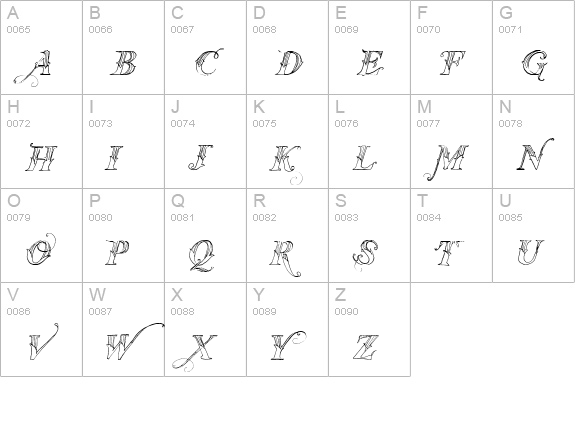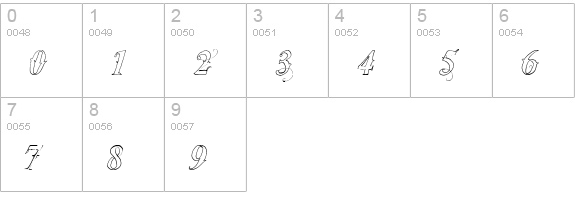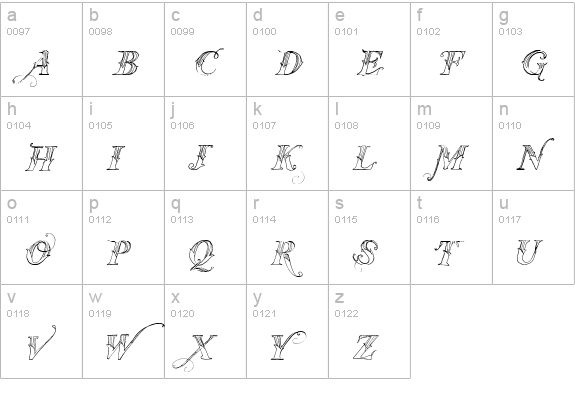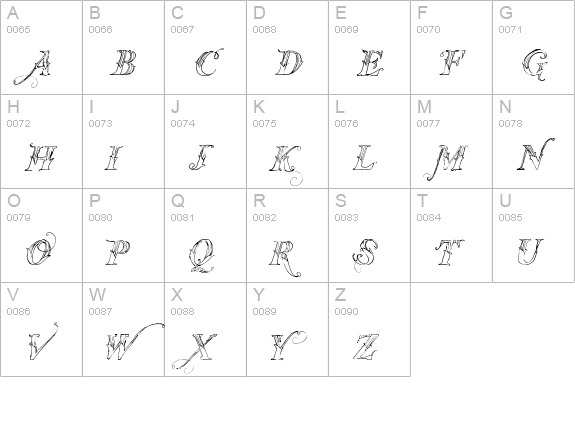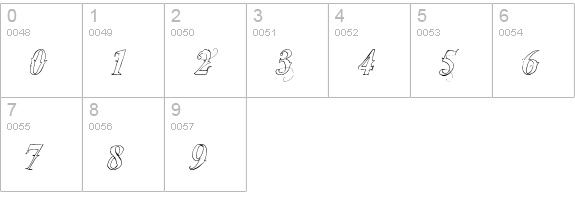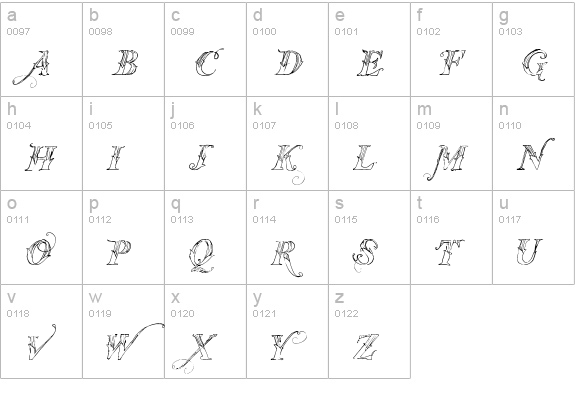
Vtks Thanks You Font Details
Vtks Thanks You font is a beautiful and expressive typeface that exudes gratitude and warmth. It is the perfect choice for conveying appreciation, whether in personal or professional projects. This font is characterized by its elegant curves, playful letterforms, and a touch of whimsy that adds a unique charm to any design. Vtks Thanks You font is not only visually appealing but also versatile in its application. It can be used in various contexts, including greeting cards, invitations, logos, branding, social media graphics, and much more. Its friendly and inviting nature makes it suitable for both formal and informal designs, making it a go-to font for various occasions. One of the best things about Vtks Thanks You font is that it is freely available to download at FontsMarket.com. This means that you can easily access and use this font without any cost or restrictions. Whether you are a designer, a student, or someone who simply appreciates beautiful typography, this font is a must-have in your collection. With Vtks Thanks You font, you can express your gratitude and convey heartfelt messages with style and creativity. Its versatility, combined with its free availability, makes it an ideal choice for anyone looking to add a touch of gratitude and elegance to their designs. So, don't miss the opportunity to download Vtks Thanks You font from FontsMarket.com and let your appreciation shine through in your next project.